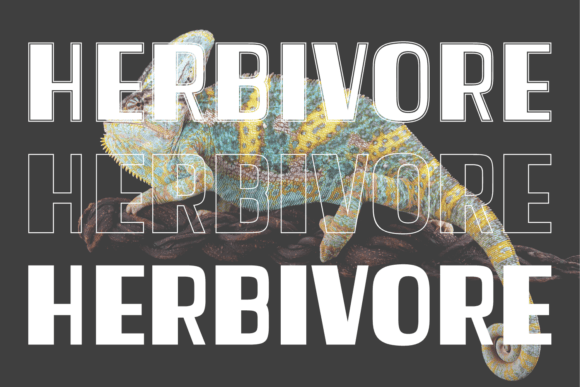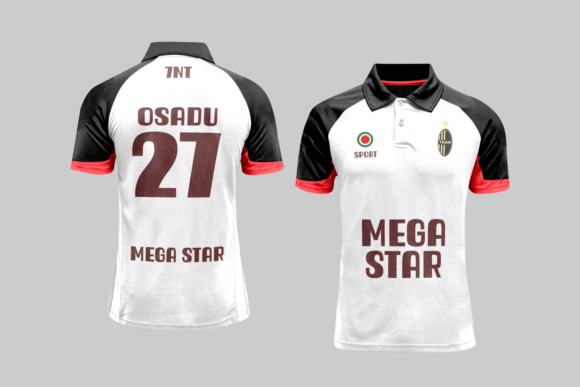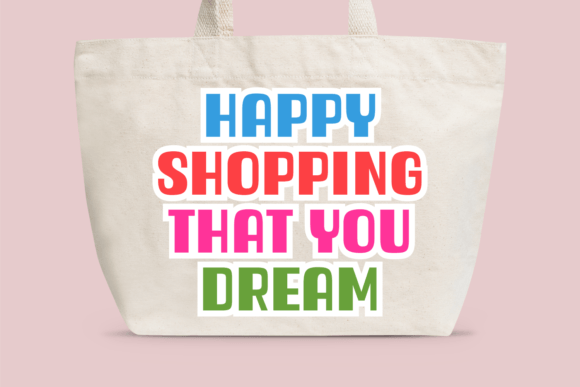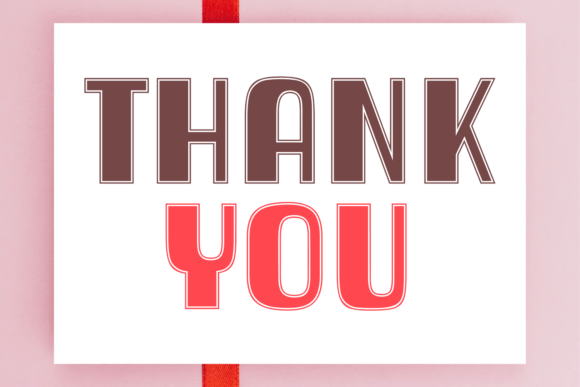
Discover the Timeless Elegance of Grand Pionts Font: Elevate Your Designs with Robust Sans Serif Fonts
Typography is an art form that can make or break a design. The right font can elevate your project from ordinary to extraordinary, conveying your message with clarity and style. If you’re a designer, craft, or simply a creative enthusiast, you’re likely always on the lookout for fonts that can help you make a statement. Look no further than Grand Pionts Font, a stunning collection of robust Sans Serif Fonts that are sure to take your designs to the next level.
Unleash Your Creativity with Grand Pionts Font
Immerse yourself in the enchanting world of typography with Grand Pionts Font, a versatile and modern sans-serif font that is perfect for a wide range of design applications. Whether you’re crafting an eye-catching advertising poster with a modern edge or working on becoming the fashion industry’s latest sensation, these fonts won’t let you down. With Grand Pionts Font, you can create stunning headlines that scream boldness, elegant book covers that narrate a vintage tale, or even sleek logos that make your brand stand out.
The Classic Charm of Sans Serif Fonts
Grand Pionts Font boasts an unmistakable classic charm that is sure to captivate your audience. These robust sans-serif fonts bear a timeless elegance that works beautifully for both digital and print designs. The clean lines, precise curves, and balanced proportions of Grand Pionts Font make it an excellent choice for designers who want to create a lasting impression. Whether you’re designing a modern website, a fashion brochure, or a product label, Grand Pionts Font is the perfect choice.
One of the best things about Grand Pionts Font is its incredible versatility. These fonts can be used for a wide range of design projects, including:
- Advertising posters and flyers
- Book covers and magazine layouts
- Websites and digital interfaces
- Fashion designs and textiles
With Grand Pionts Font, you can experiment with different styles, from bold and edgy to elegant and sophisticated. The possibilities are endless, and the only limit is your imagination.
Why Choose Grand Pionts Font?
So, what sets Grand Pionts Font apart from other fonts on the market? Here are just a few reasons why designers and crafters love Grand Pionts Font:
- Unique and distinctive design: Grand Pionts Font boasts a unique and distinctive design that is sure to make your projects stand out.
- High-quality and precise: These fonts are crafted with precision and attention to detail, ensuring that they look great in any size or format.
- Easy to read and versatile: Grand Pionts Font is optimized for readability, making it perfect for body text, headlines, and more.
- Constantly updated and improved: The Grand Pionts Font team is committed to continuously updating and improving their fonts to meet the evolving needs of designers.
If you’re ready to take your designs to the next level, look no further than Grand Pionts Font. With its timeless elegance, versatility, and precision, this stunning collection of robust sans-serif fonts is sure to become your go-to choice for all your design needs. So why wait? Explore Grand Pionts Font today and discover a world of creative possibilities at your fingertips.
In conclusion, Grand Pionts Font is an exceptional choice for designers and crafters who want to create stunning designs that make a lasting impression. With its unique design, high-quality precision, and versatility, Grand Pionts Font is the perfect tool to help you achieve your creative vision. So, what are you waiting for? Dive into the enchanting world of Grand Pionts Font and elevate your designs to new heights!